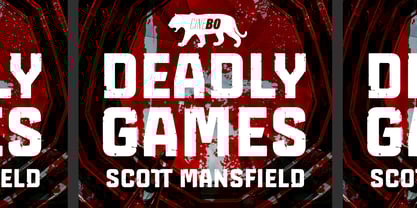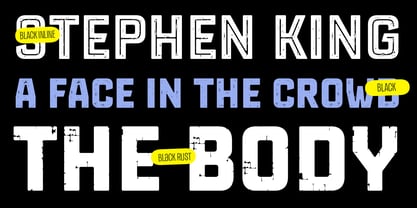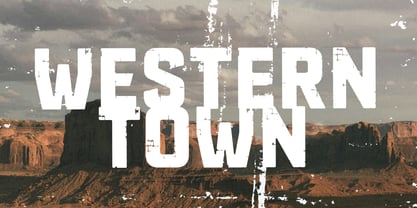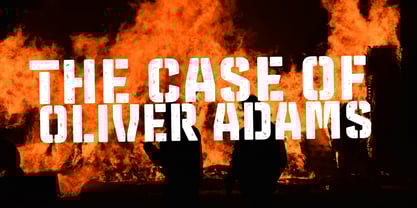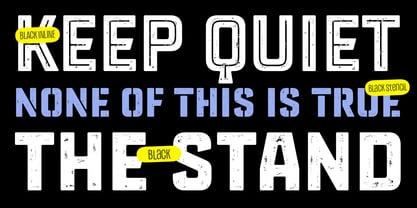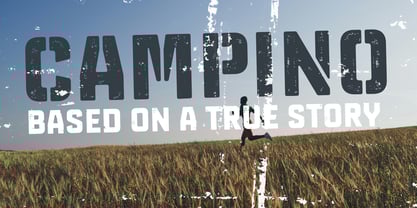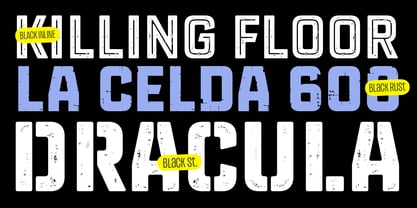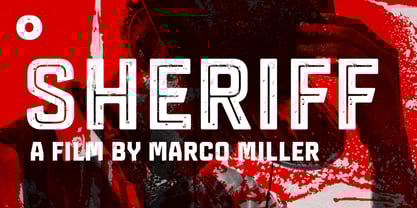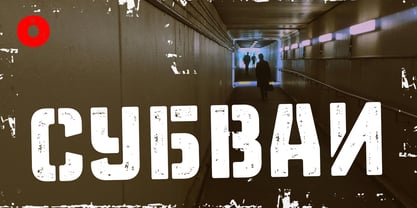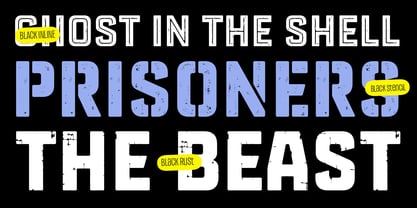
St Monica Rough
by RodrigoTypo
The St Monica Rough Font Family was designed by Rodrigo Araya Salas, Bruno Jara Ahumada and published by RodrigoTypo. St Monica Rough contains 4 styles and family package options. More about this family
"St Monica Rough" is an extension of St Monica, it is a rough version, which contains 4 variants, in addition to Greek and Cyrillic alphabet, especially for titles, especially action, suspense.